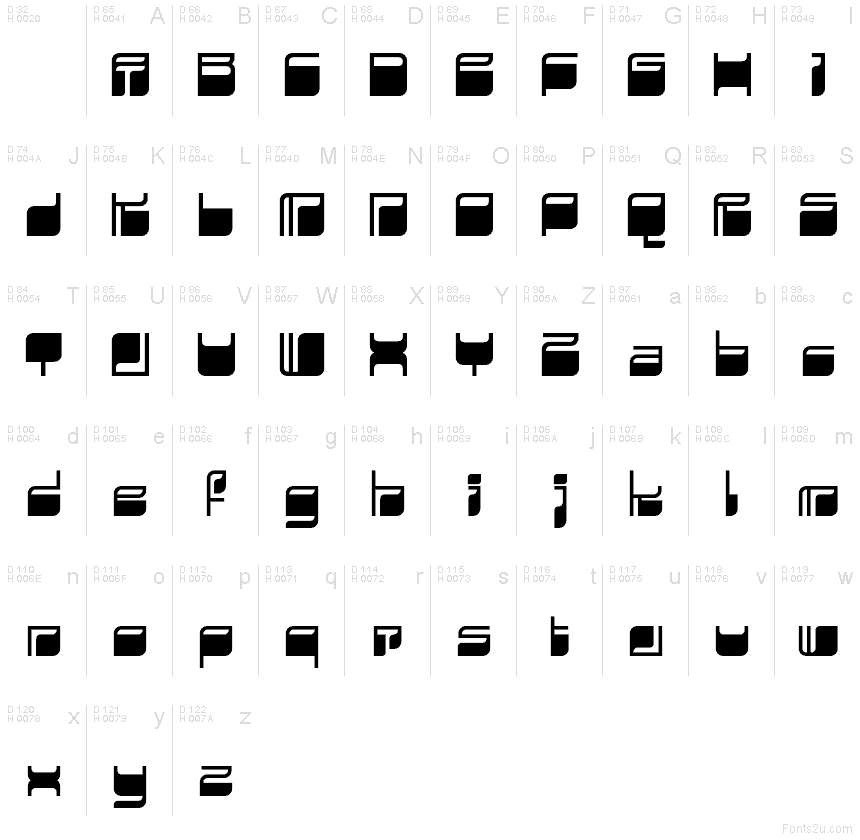
CS Skyler Regular Demo
CS Skyler font by Craft Supply Co. is a modern display typeface that embodies a tech-inspired retro style. Featuring bold, expanded letterforms with geometric shapes, it holds a distinctive futuristic aura that is hard to overlook. Whether big or small, the font stands out in all settings and remains readable even when used multiple times.
Consider using this free display font on greeting cards and posters or in magazines and book covers. Displayed on blogs, games, and digital apps for titles or main text will also give astonishing results which the audience will enjoy reading through and browsing as design-friendly typography integrated smoothly into designs is always special!